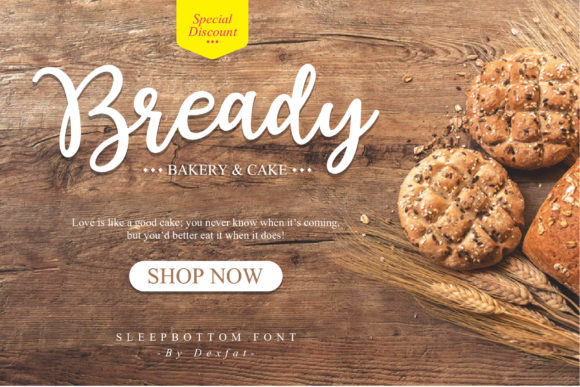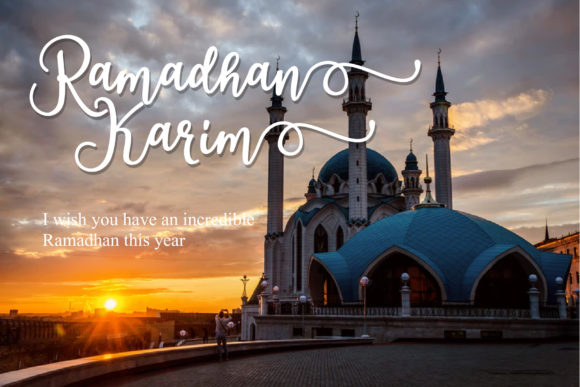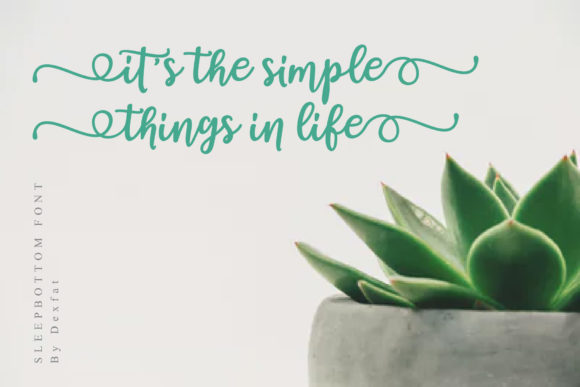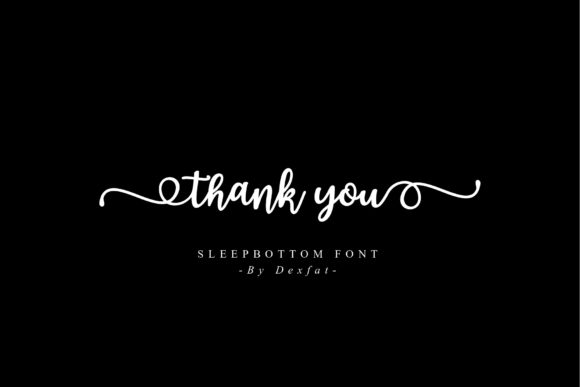
Introduction to Sleepbottom Font
Have you ever been working on a creative project and felt like something was missing, like a gentle whisper of romance and elegance? For designers, finding the perfect font can be the key to unlocking that special something. That’s where the Sleepbottom Font comes in – a one-of-a-kind handwritten font that will elevate any design with its lovely swashes and high-quality aesthetic.
Imagine having a design resource that’s not only beautiful but also versatile, allowing you to create a range of styles from modern to vintage with ease. The Sleepbottom Font is perfect for designers looking to add a touch of whimsy and personality to their work, whether it’s a wedding invitation, a book cover, or a website design.
What sets the Sleepbottom Font apart is its transparent background, making it easy to use and customize in any design project. Plus, it’s available for free download, making it an invaluable asset for designers on a budget. With its romantic feel and high-quality design, the Sleepbottom Font is a must-have for any creative project.
Key Features of Sleepbottom Font
- High-quality font design with a unique, creative style perfect for various projects.
- Transparent background, allowing for easy layering and manipulation in design software.
- Designed with a high resolution of 300 DPI, ensuring crisp and clear text display in various sizes.
- Part of a comprehensive font family, offering a range of styles and weights for added versatility.
Honest Review: Sleepbottom Font
I recently stumbled upon the Sleepbottom Font and was excited to give it a try in my latest creative project. As a designer, I’m always on the lookout for high-quality fonts that can elevate my designs.
- What works well: ✨ The font has a unique, modern feel that’s perfect for a variety of creative projects. The transparent background is also a great touch, allowing me to easily overlay it on top of other design elements.
- What works well: ✨ The font is highly customizable, making it easy to adjust the style and feel to suit my needs.
While the Sleepbottom Font is a great addition to my design arsenal, there are a few limitations to be aware of:
- Limitations: ⚠️ The font is a bit more complicated to use than some of the other fonts I’ve worked with in the past.
- Limitations: ⚠️ The font library is relatively small, which may limit its versatility in certain projects.
Overall, I’m really impressed with the Sleepbottom Font. While it’s not perfect, it’s a great resource for designers looking for a high-quality, unique font for their creative projects.
Experiment with different font combinations to create a unique look. Use the Sleepbottom Font in conjunction with other design elements, such as graphics or icons, to add visual interest to your project.
The Sleepbottom Font is ideal for various design projects, including:
– Branding and logos
– Print materials, such as brochures or flyers
– Digital presentations